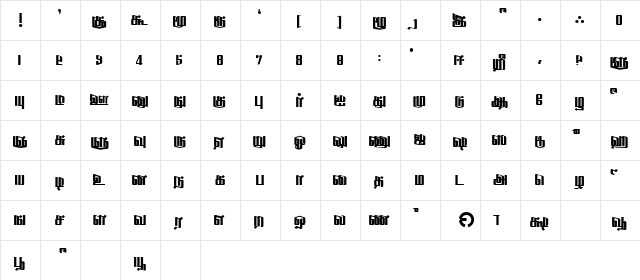
Sahaanaa Regular
Design Context for Sahaanaa Typeface
Sahaanaa is a composed and adaptable typeface that performs quietly and consistently across a wide range of design contexts.